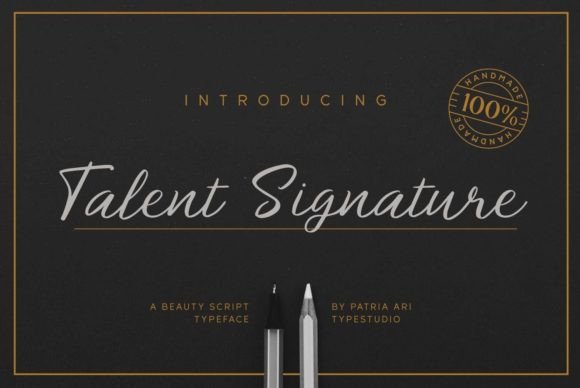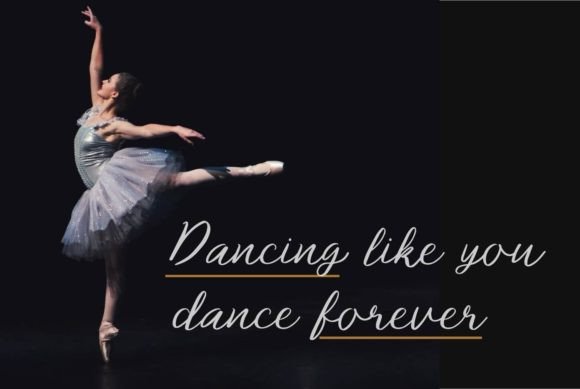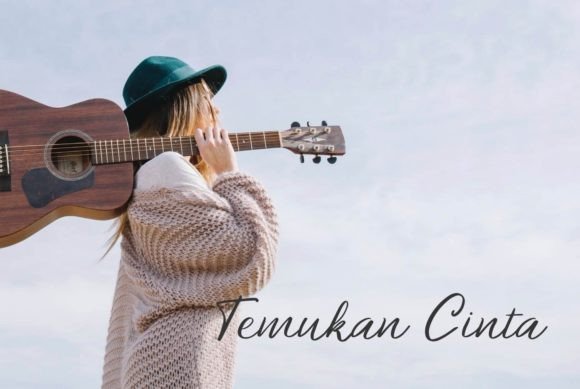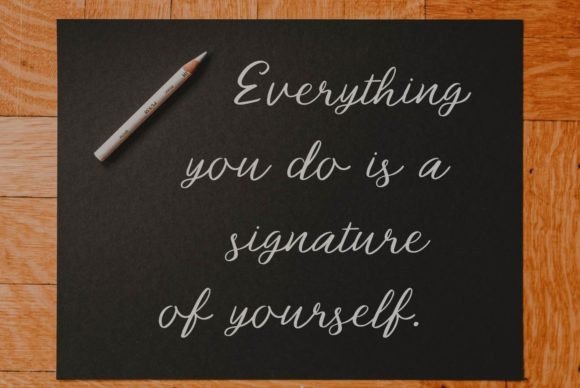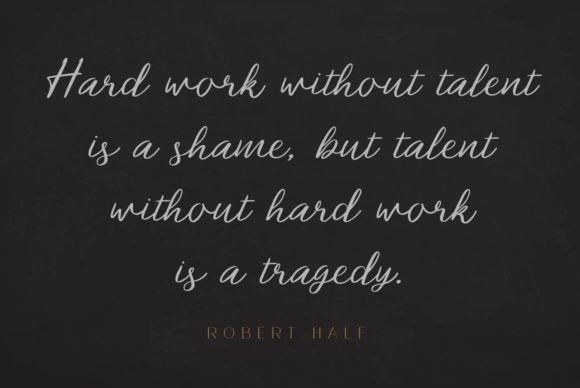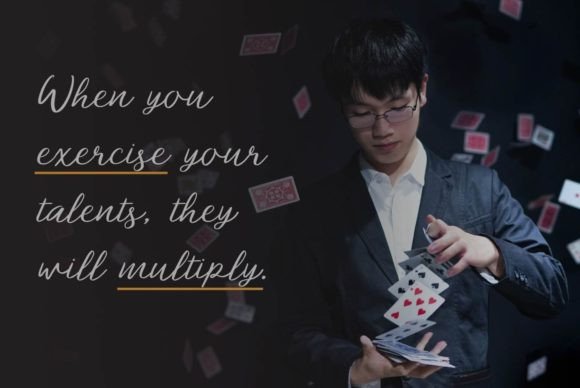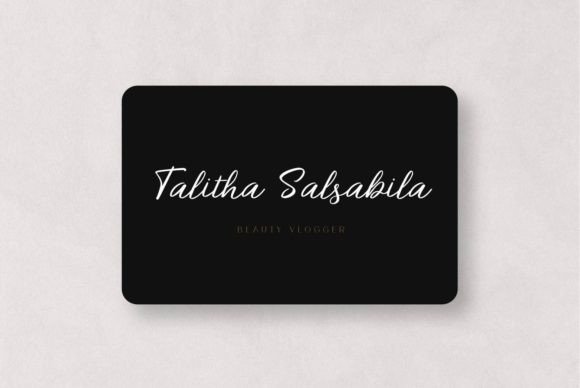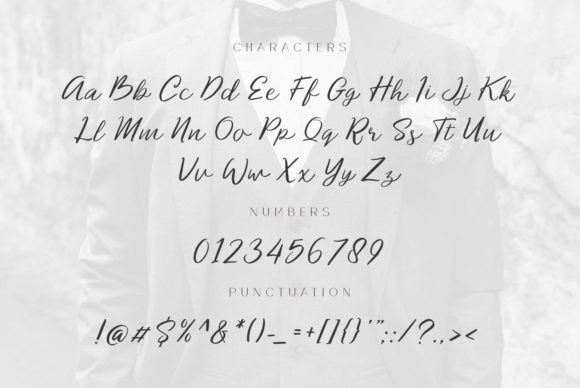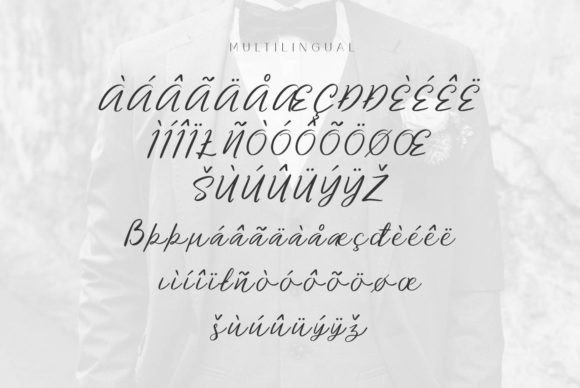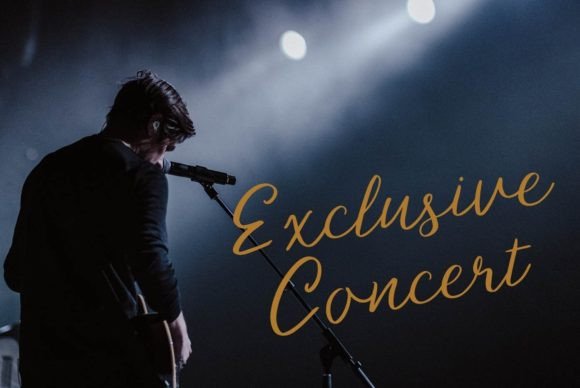
Talent Signature Font
About Talent Signature Font
Meet Talent Signature, the epitome of delicacy and well-rounded grace in handwritten fonts—a perfect choice for your crafty projects that demand an authentic touch in typography. Whether you’re working on wedding invitations, birthday cards, personal branding, or crafting elegant logos, Talent Signature is your ally in making designs that truly stand out.
The beauty of Talent Signature lies in its subtle yet impactful strokes. The delicacy of each letter adds a touch of sophistication to your projects, making it a versatile font that adapts seamlessly to various creative endeavors. If your goal is to infuse a sense of authenticity into your designs, Talent Signature is the key.
Imagine the allure of Talent Signature gracing your wedding invitations. The handwritten charm brings an intimate and personalized feel, setting the perfect tone for the celebration of love. Similarly, for birthday cards, this font adds a layer of warmth, turning your wishes into more than just words—they become an experience.
Personal branding takes on a new level of elegance with Talent Signature. It’s not just a font; it’s a signature that represents you. Whether on your website, business cards, or any promotional material, this font adds a touch of sophistication that leaves a lasting impression.
Crafting an elegant logo is an art, and Talent Signature is your artistic tool. Its well-rounded design ensures that your logo doesn’t just speak about your brand; it speaks with an eloquence that captures attention and resonates with your target audience.
In essence, Talent Signature is more than a font; it’s a design companion that brings a unique personality to your projects. Its versatility makes it a valuable asset for a range of creative applications. From the charm of handwritten wedding invitations to the sophistication of personal branding, let Talent Signature be the brushstroke that elevates your designs to new heights.
So, if you’re seeking a font that adds an authentic and delicate touch to your crafty projects, look no further than Talent Signature. It’s not just a typeface; it’s the signature of your creativity, ensuring that your designs not only stand out but also leave a lasting impression on those who behold them.